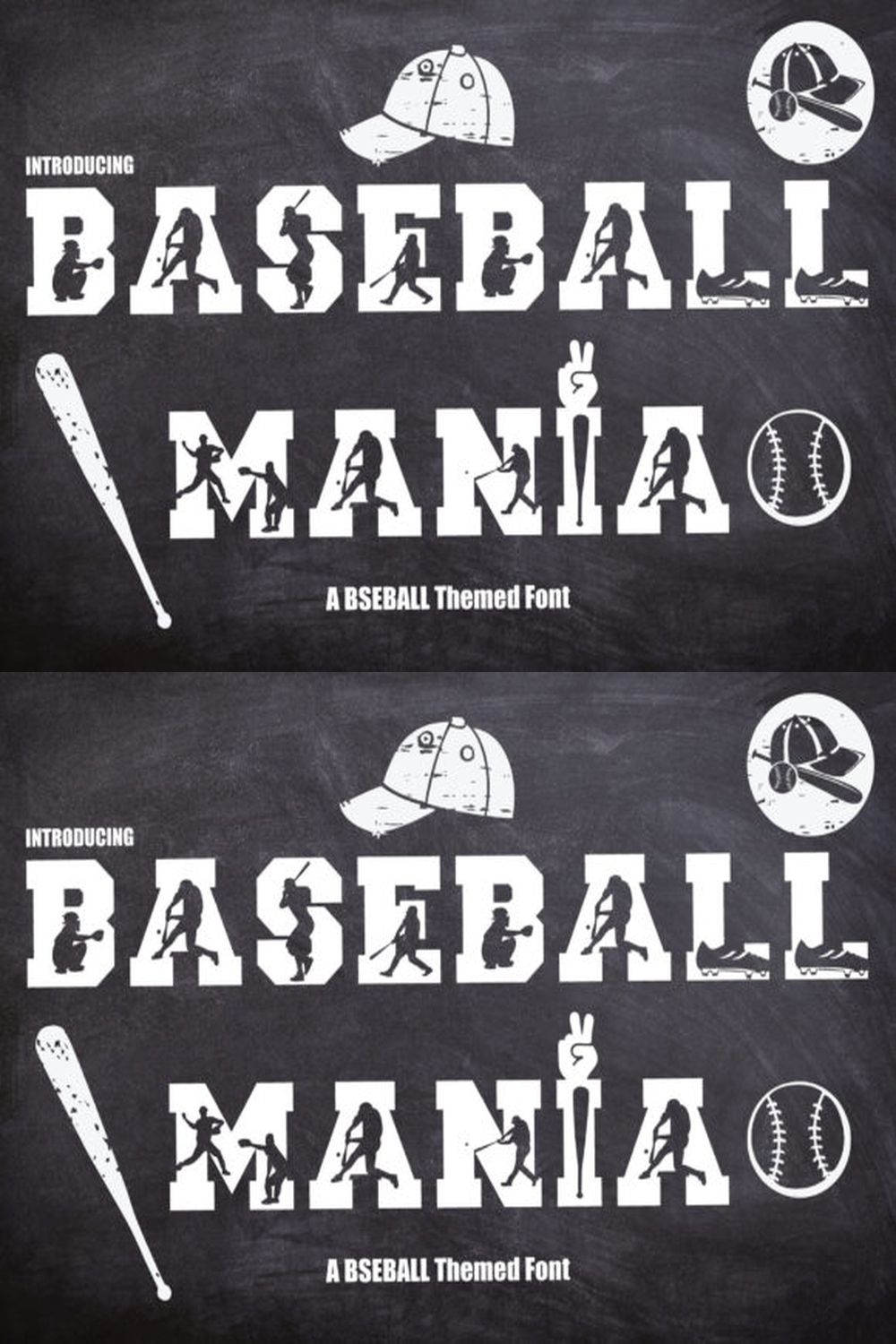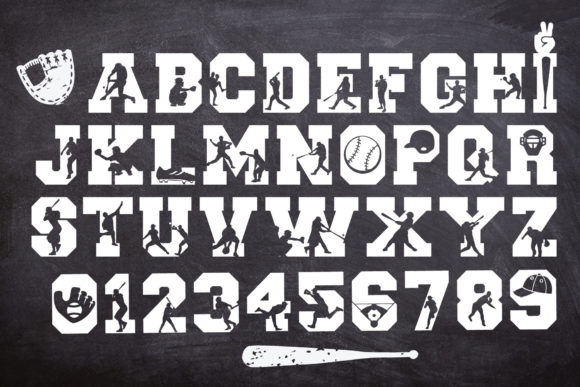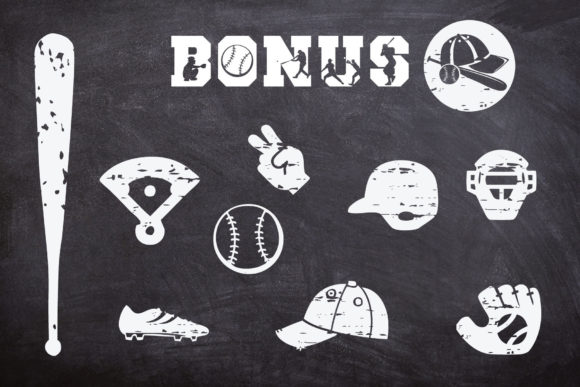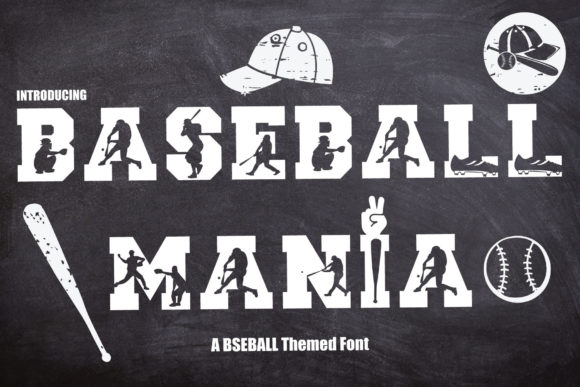
Baseball Mania Font: A Bold Display Font for Sports Typography
About the Baseball Mania Font
Discover the charm of Baseball Mania Font. This font is a perfect blend of modern aesthetics and classic appeal. Baseball Mania is a cool, bold and inspired decorative font. Add it to your baseball related designs and you will be astound by the results.
Baseball Mania Font Usage Examples